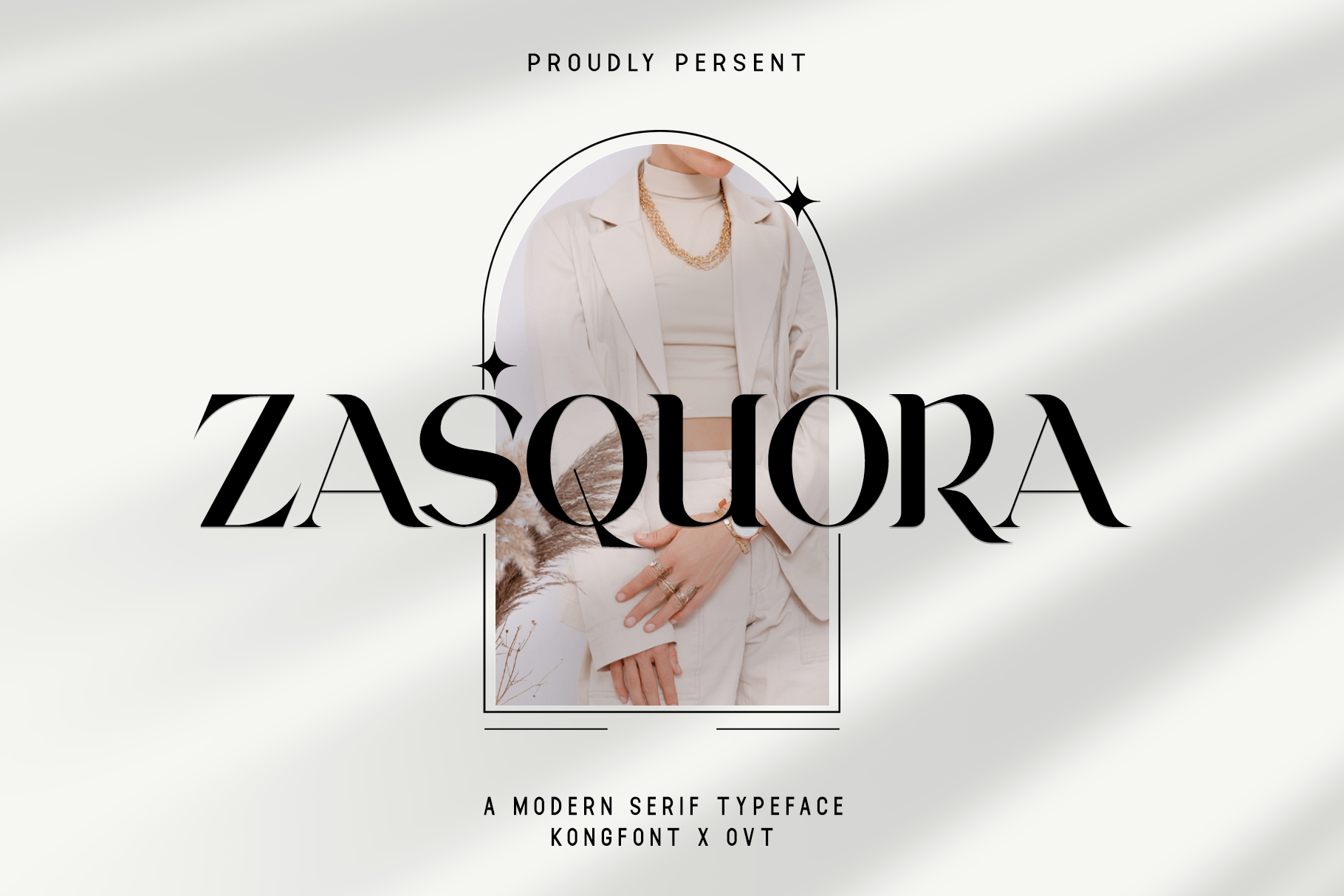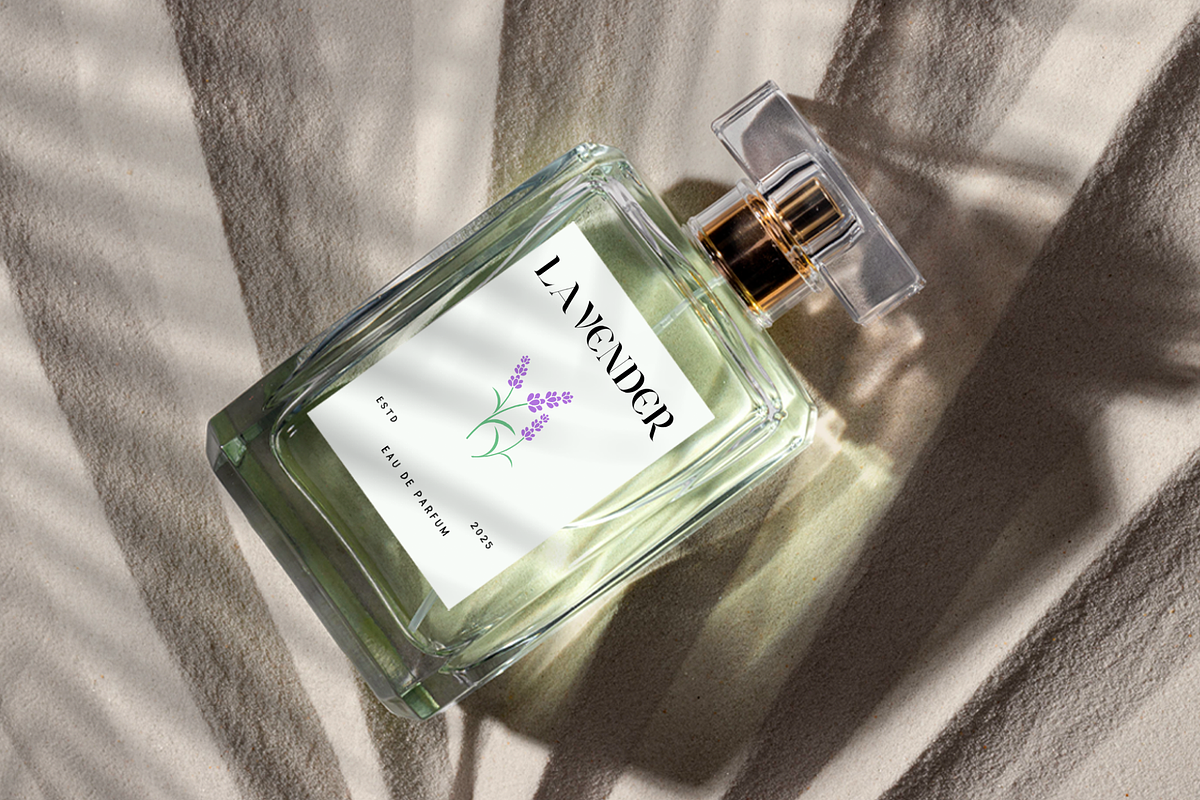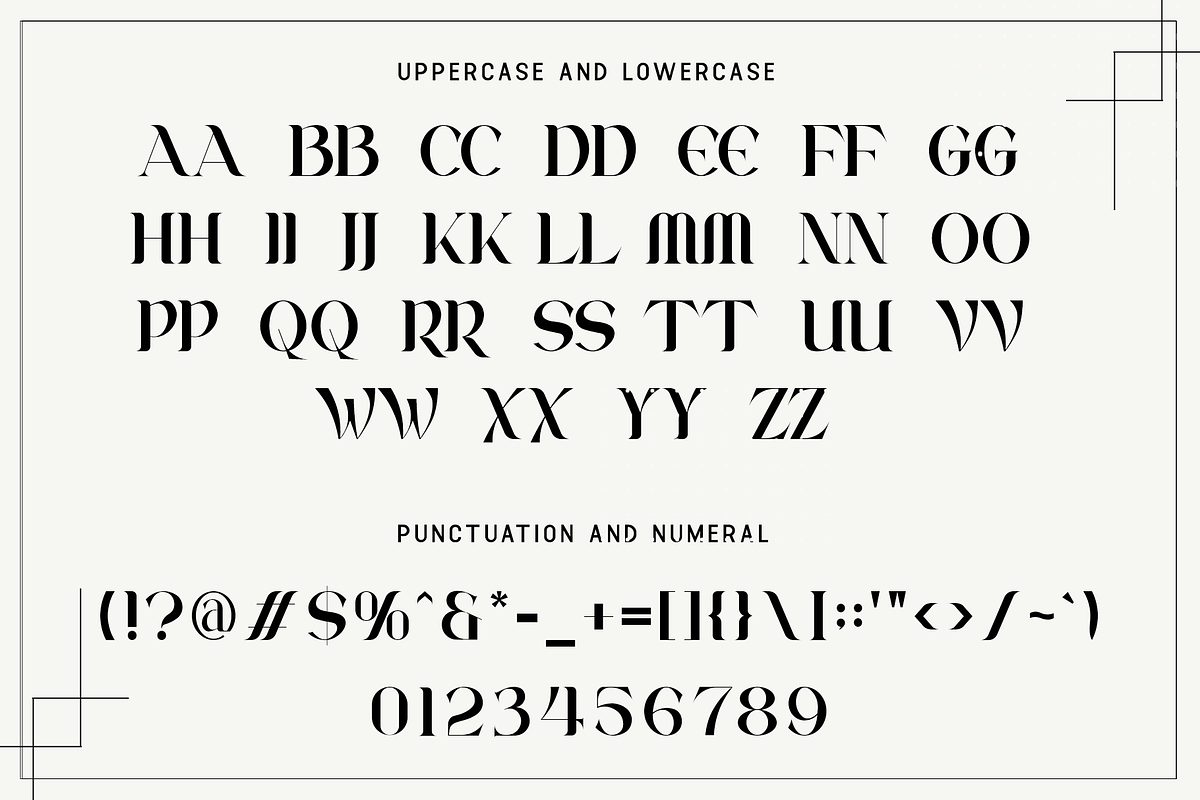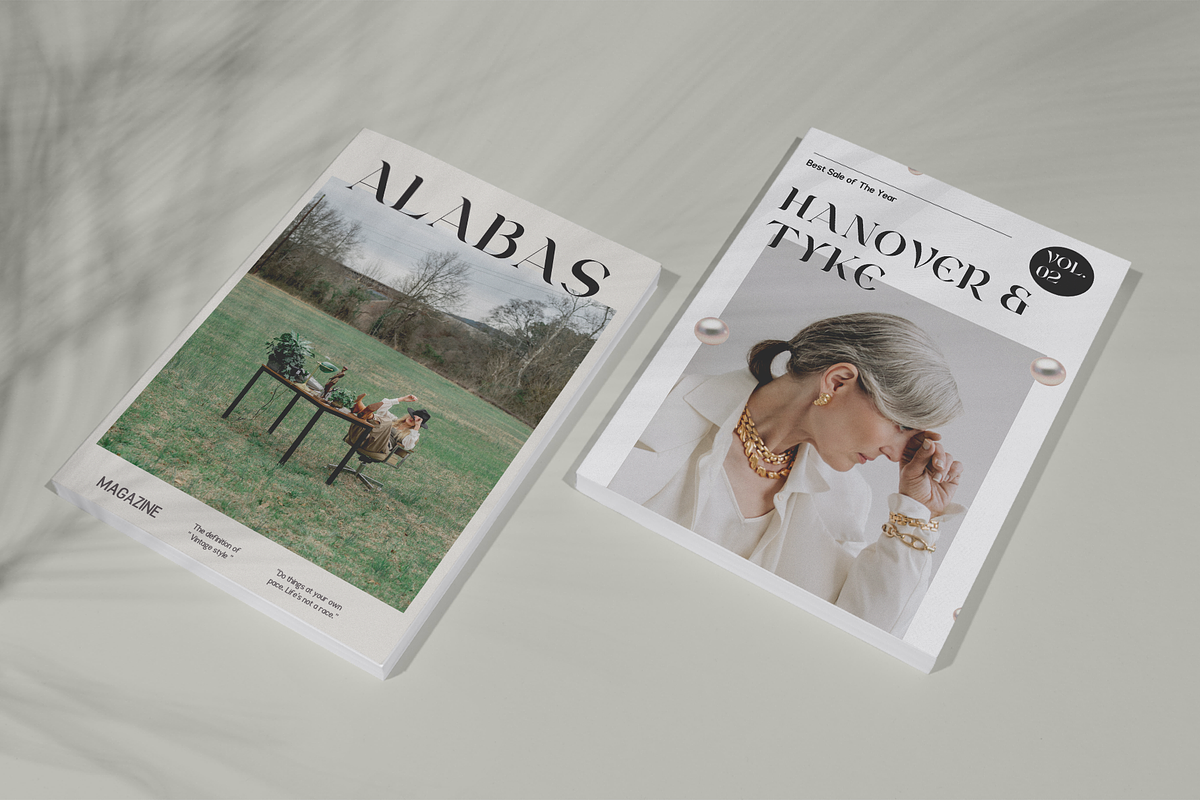
Zasquora - Modern Serif Typeface
Introducing "Zasquora," a modern serif typeface designed to bring sophistication and versatility to your projects. With its clean lines and refined details, Zasquora exudes timeless elegance and professionalism, making it the perfect choice for a wide range of design applications.
Crafted with precision and care, Zasquora strikes the perfect balance between classic serifs and contemporary aesthetics. Whether you're creating editorial layouts, branding materials, or digital designs, this font commands attention and leaves a lasting impression.
Featuring multiple weights and styles, Zasquora offers flexibility and adaptability for any design endeavor. Its extensive character set includes alternates, ligatures, and swashes, allowing you to customize your typography with ease and precision.
Elevate your typography to new heights with the refined beauty and versatility of Zasquora, where modern sophistication meets timeless charm.